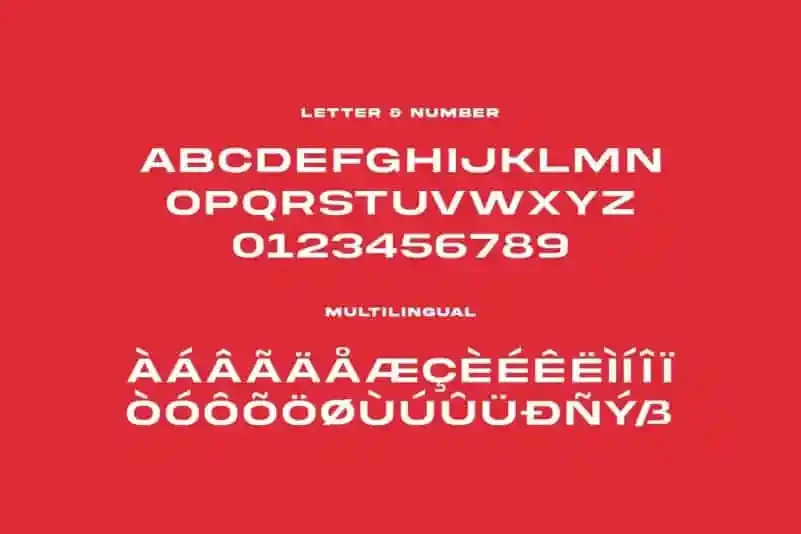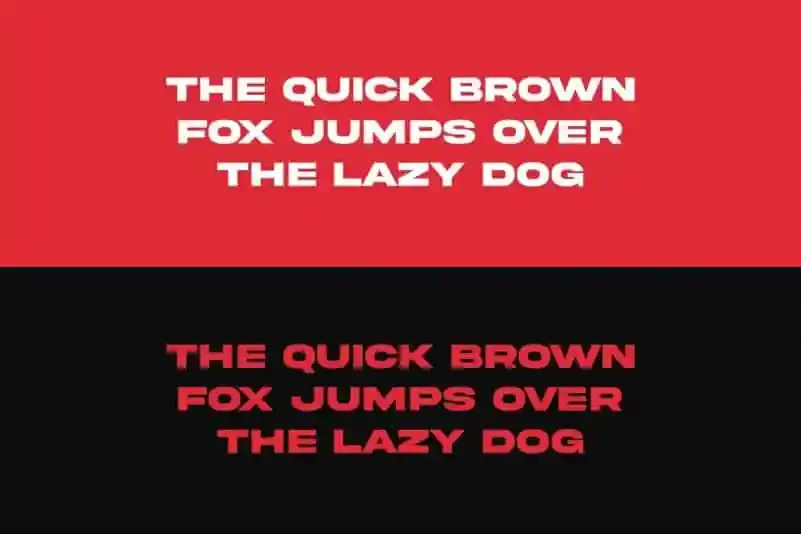
Akira Expanded Font brings unapologetic boldness to your designs. Created by Typologic, this geometric sans serif features ultra-wide letterforms, razor-sharp edges, and a confident style that commands attention. Whether you're working on a futuristic logo, a loud magazine cover, or digital branding, Akira Expanded doesn’t just show up, it dominates the room.
Style: Bold Expanded Sans Serif
Clean, modern sans serif with expanded proportions
Bold weight with tight spacing for maximum impact
Includes stylistic alternates for creative flexibility
This Font is made for display use, things like headlines, posters, web banners, and product packaging. Because of its bold structure, it pairs best with clean, neutral body fonts like Lato, Open Sans, or Roboto. If you're designing a tech brand, modern event promo, or even futuristic apparel branding, Akira Expanded fits right in.